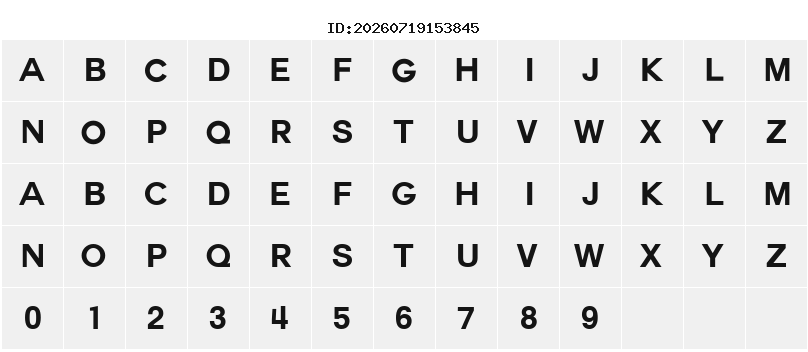
COUTURE Preview
• Font Name: COUTURE
• Font ID: cbabb: COUTURE Bold: 2012
• Full Font Name: COUTURE Bold
• Version: Version 1.002 2012
• PostScript Name: COUTURE-Bold
• Character Count: 68
• Designer: cbabb
• Manufacturer: cbabb
About COUTURE.ttf
COUTURE.ttf is a modern, elegant sans-serif font designed for ultimate readability and visual harmony. Perfect for branding, headlines, web design, and print materials.